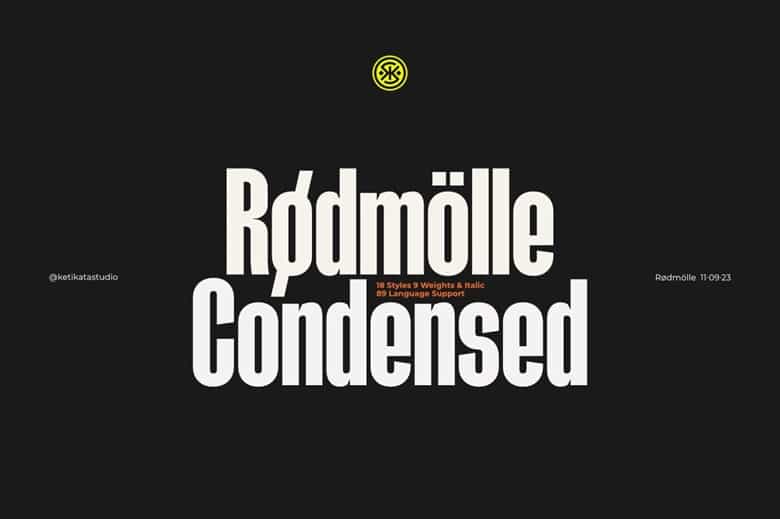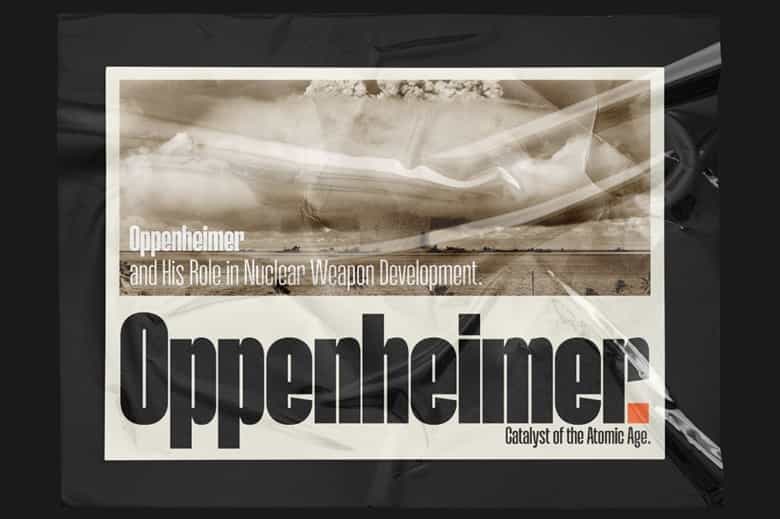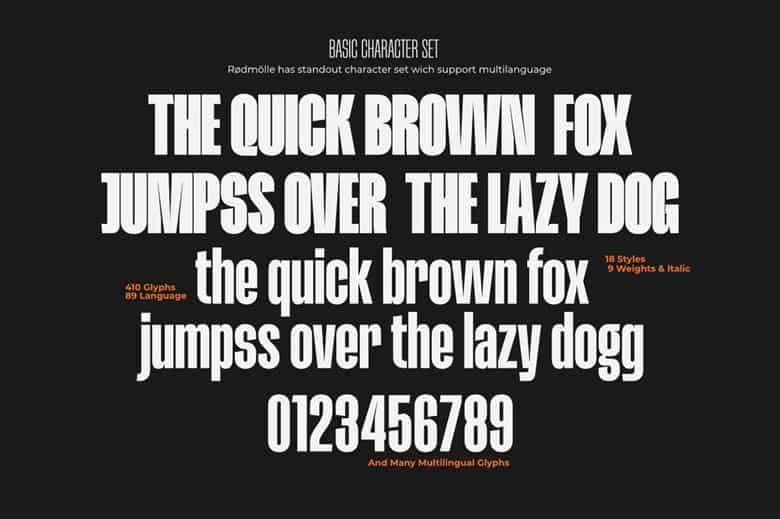
Introducing my latest condensed sans serif font! Rødmölle. This typeface combines modern aesthetics with a space-saving design, makin it ideal for bold headlines, signage, and branding. Its clean lines and sharp edges convey a sense of strength and sophistication,